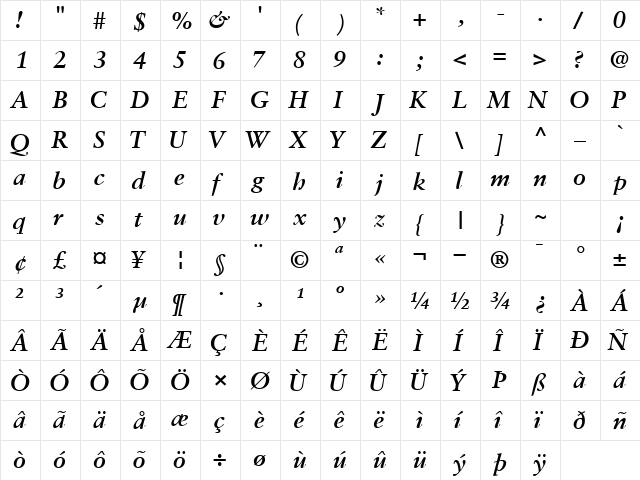
GaramondRetrospectiveSSK Bold Italic Font Preview
Design Context for GaramondRetrospectiveSSK Typeface
GaramondRetrospectiveSSK has the warm character of retro typography — evoking diners, record sleeves, and the golden age of print advertising. The slanted form adds forward momentum and visual energy. The heavy weight commands attention and anchors typographic hierarchies.
Ideal for diner signage, record shop branding, 70s/80s-themed projects, and heritage product labels.
Font Pairing: Combine GaramondRetrospectiveSSK with a simple slab or neutral sans — period-accurate companions reinforce the vintage feel without competing for attention.
Pro Tip: Lean into GaramondRetrospectiveSSK's period character by pairing it with aged paper textures, muted colour palettes, and vintage illustration styles.